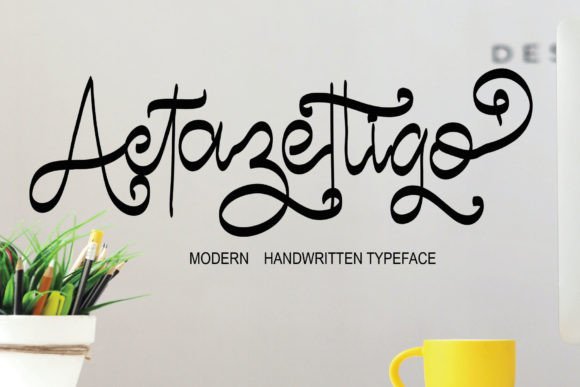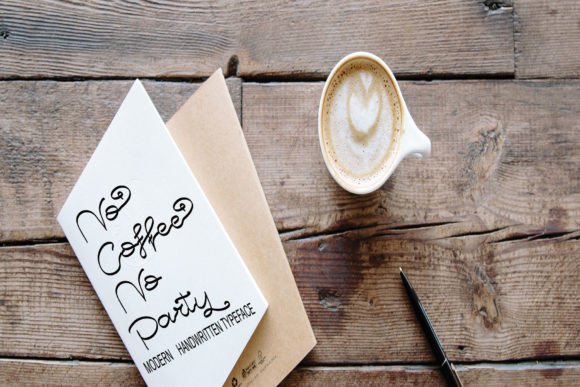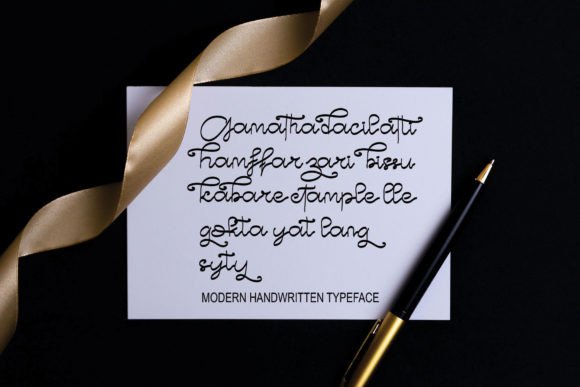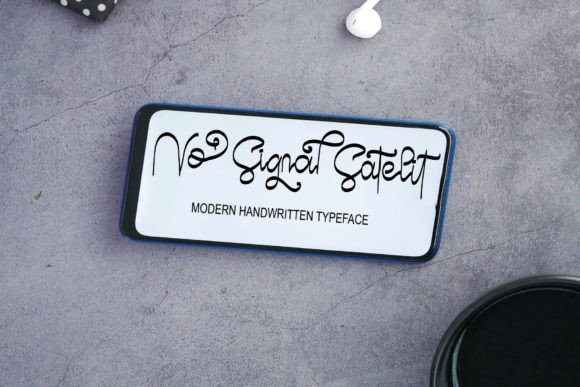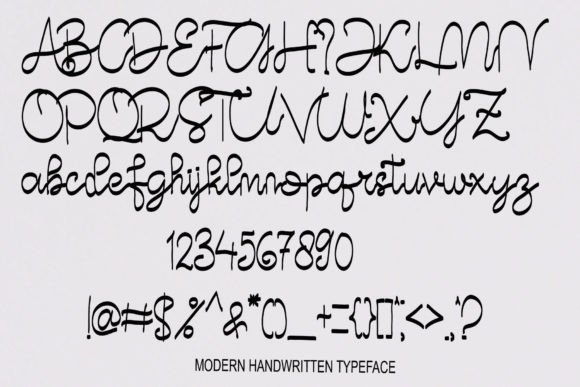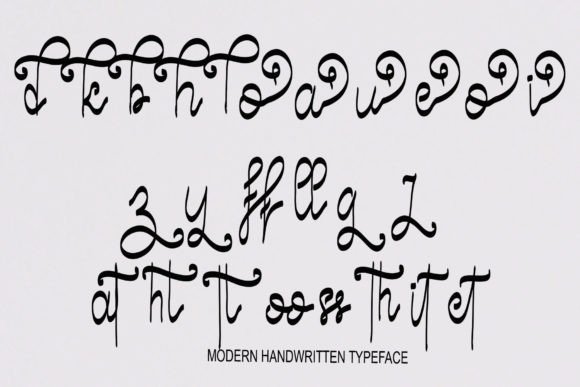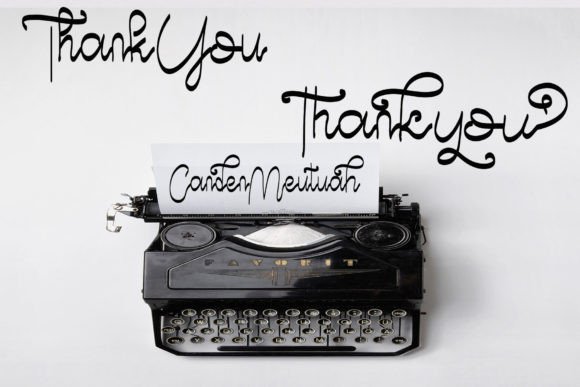
Indegethe Font
About Indegethe Font
**Indegethe** is a meticulously crafted handwritten font, created with precision using a tablet. Its simplicity and careful design make it a versatile addition to your font collection. This font can enhance a wide range of projects, including websites, wedding invitations, business cards, signatures, and advertisements, whether they are product promotions or general advertising. Despite its simplicity, **Indegethe** exudes a cool and stylish vibe, making it a valuable choice for various design applications. The PUA encoding of this font ensures easy access to all its glyphs and swashes, providing you with a wealth of design possibilities.
**Indegethe** embodies the essence of handwritten simplicity, offering a clean and polished aesthetic that can elevate the visual appeal of your projects. Its carefully crafted characters are both legible and stylish, making it an excellent choice for modern and contemporary design themes.
One of the standout qualities of **Indegethe** is its adaptability. Whether you’re designing a sleek and minimalist website, creating elegant wedding invitations, or crafting professional business cards, this font seamlessly integrates into diverse design contexts, enhancing each project with its understated charm.
The font’s appeal extends effortlessly from digital platforms to print media. Whether it graces the pages of a sleek website or adds a touch of sophistication to a printed business card, **Indegethe** maintains its cool and stylish presence in every setting. Its readability ensures that your message is conveyed with clarity and modernity, while its simplicity adds an extra layer of visual appeal.
What sets **Indegethe** apart is its ability to convey a sense of simplicity and style. It’s a font that invites your audience to engage with your creative ideas in a way that resonates with contemporary aesthetics. With **Indegethe** as part of your creative toolkit, you can convey your message with a clean and stylish flair that appeals to individuals who appreciate modern design.
Furthermore, **Indegethe** offers a wide array of customization options, allowing you to tailor your text to match your creative vision precisely. This flexibility empowers you to create designs that align with your artistic preferences.
In conclusion, **Indegethe** is not just a font; it’s a design asset that enhances your creative projects with simplicity, style, and a modern touch. Embrace its handwritten style, and let it inspire you to craft clean and stylish designs that leave a lasting impression. With **Indegethe** by your side, your creative possibilities are boundless, enabling you to create works of art that are as simple and stylish as they are versatile and captivating.